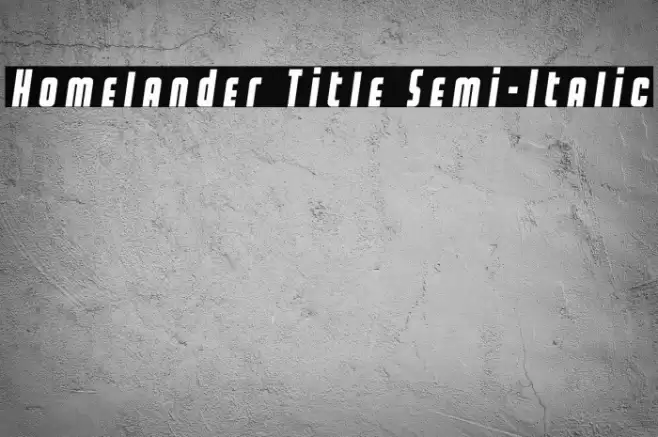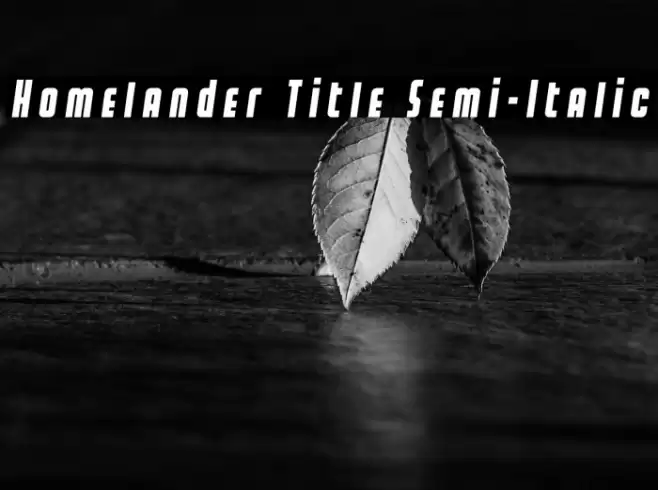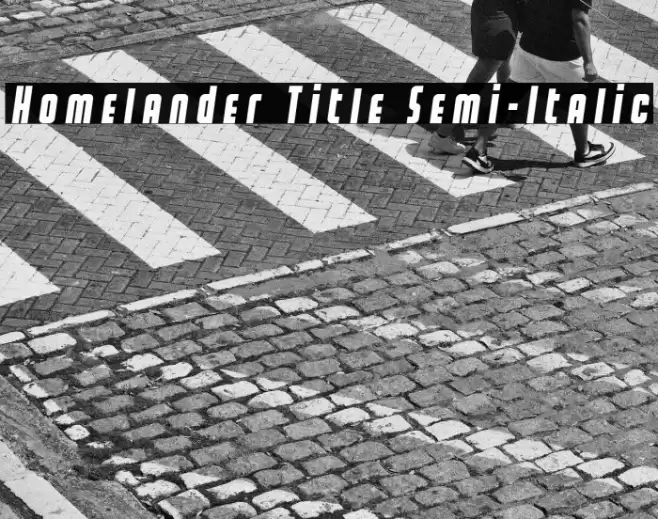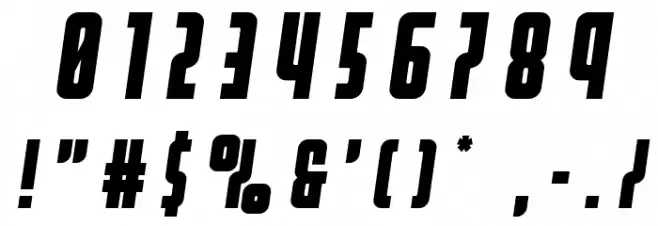
Homelander Title Semi-Italic Font
Homelander Title Semi-Italic Description
This font features a bold and dynamic style with semi-italicized characters that convey a sense of movement and energy. The uppercase and lowercase letters are designed with a strong vertical emphasis, while the numerals and special characters maintain a consistent weight and style. The font's unique slant and boldness make it stand out, offering a modern and assertive appearance. The characters are slightly condensed, enhancing the compact and impactful look. This font is ideal for projects that require a strong visual presence and a contemporary feel.
A bold, semi-italic font with a dynamic and modern style from Uncategorized fonts.
- Proposed Projects: Ideal for headlines, posters, branding, and any design needing a bold statement.